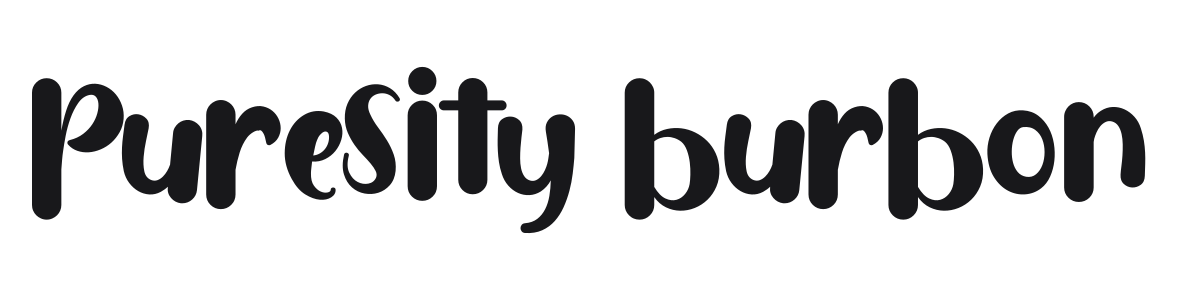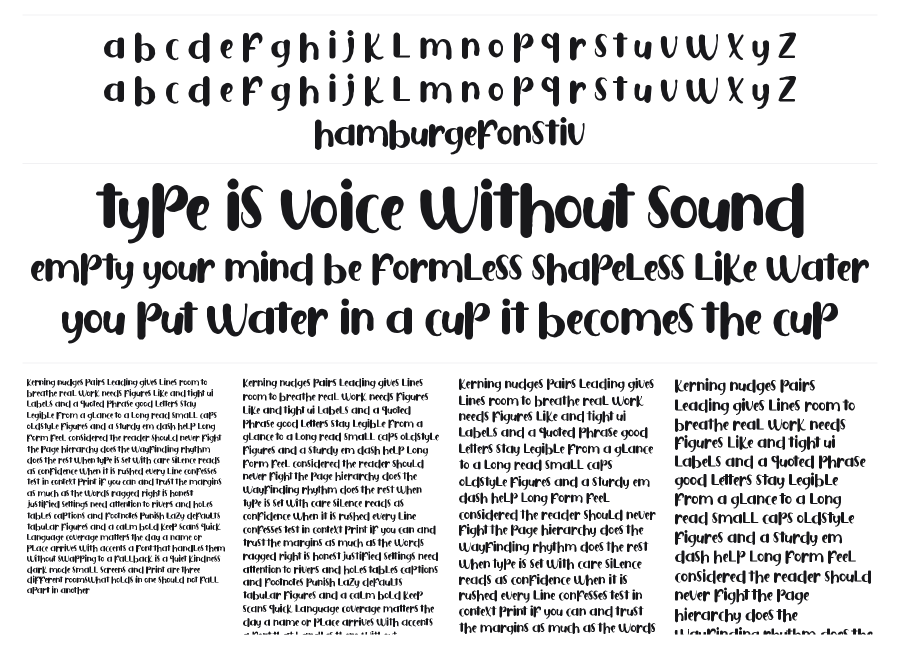
Puresity Burbon
Puresity Burbon is a bold, bubbly casual script with thick rounded strokes and a joyfully bouncy rhythm. The heavy weight and free mixing of case forms give it the feel of confident hand-lettering without losing legibility at headline sizes. Great for branding, packaging, or any project that needs to feel warm and approachable.